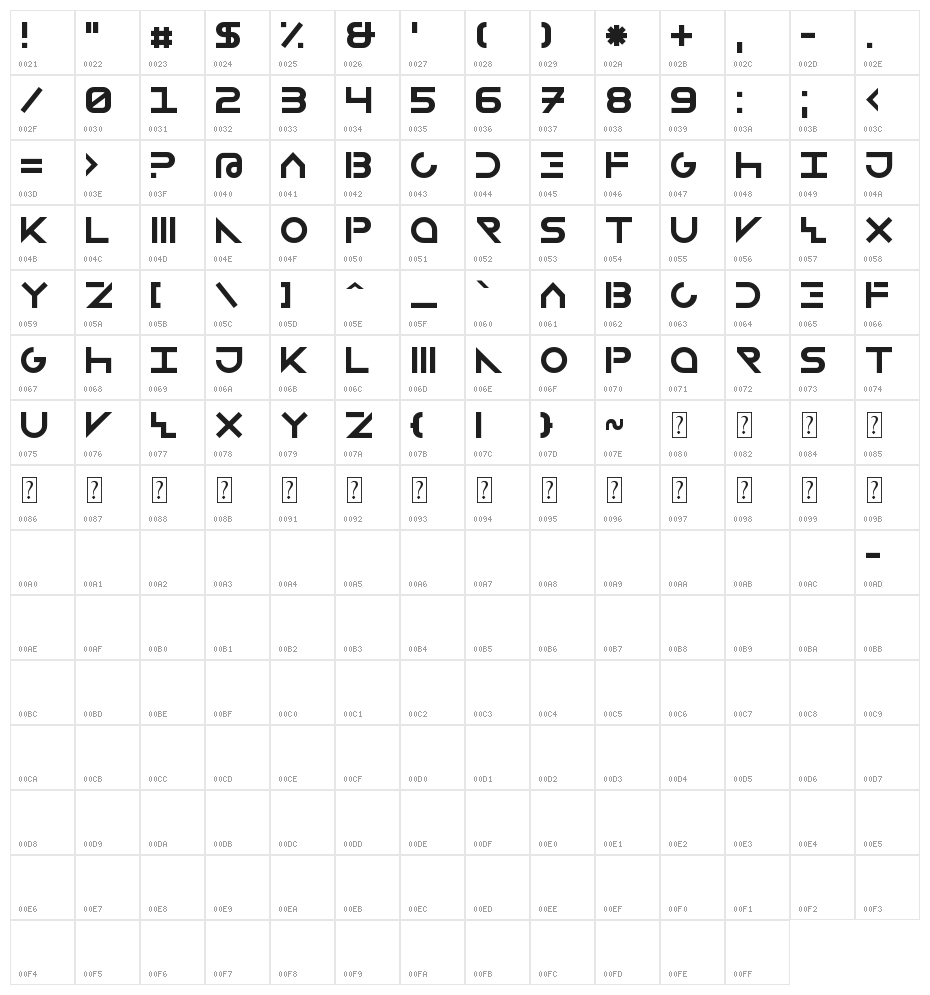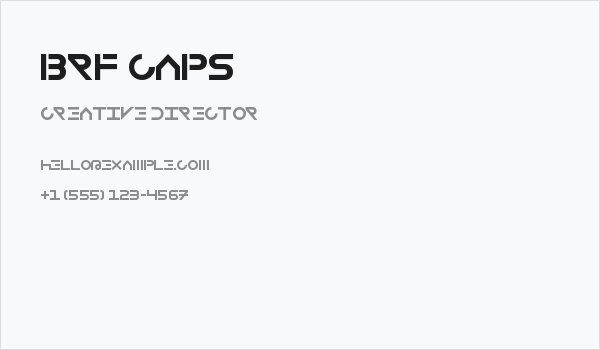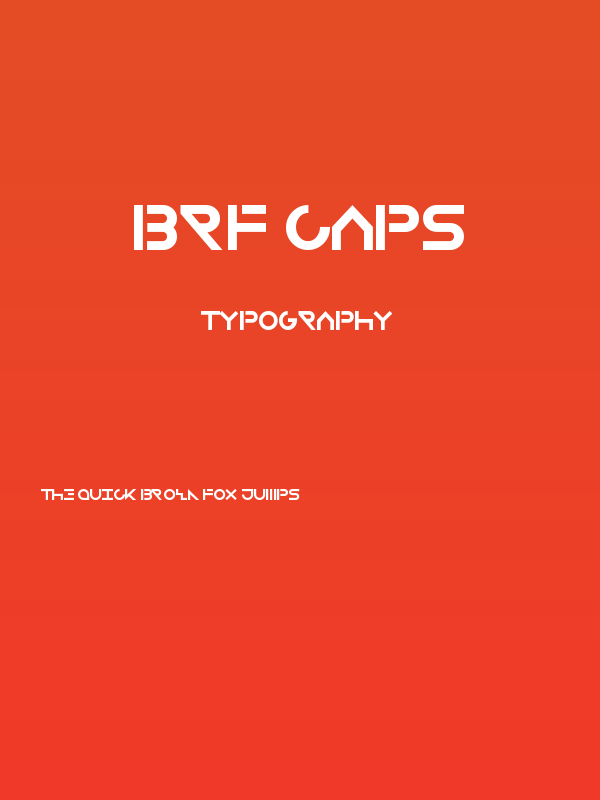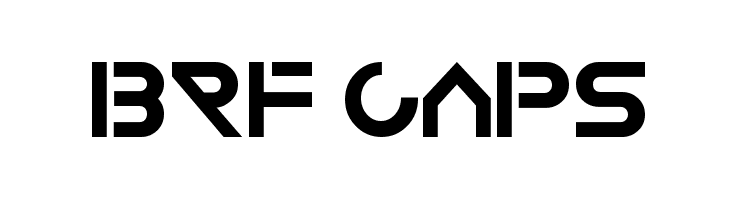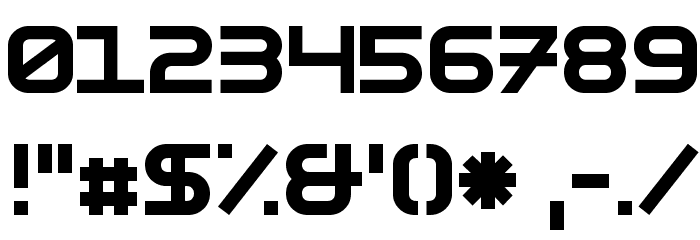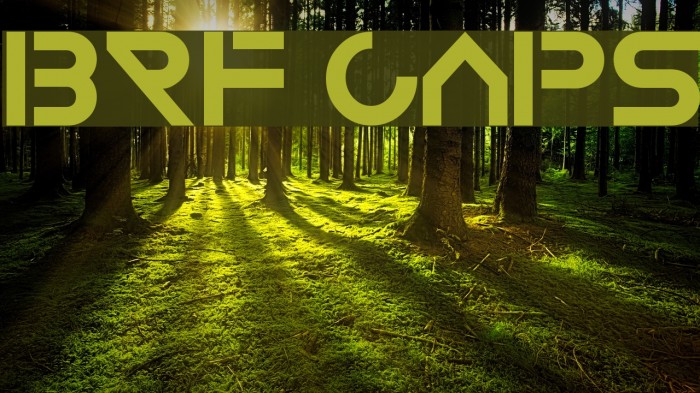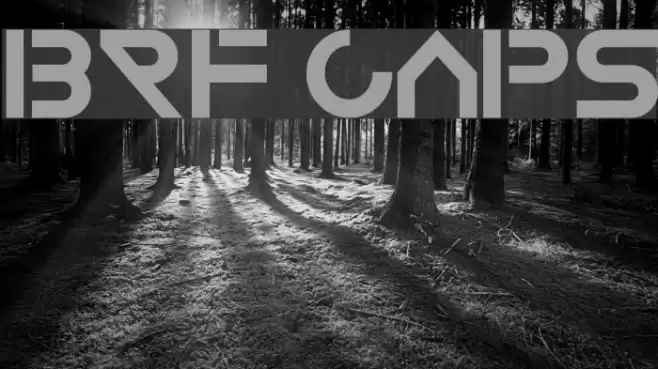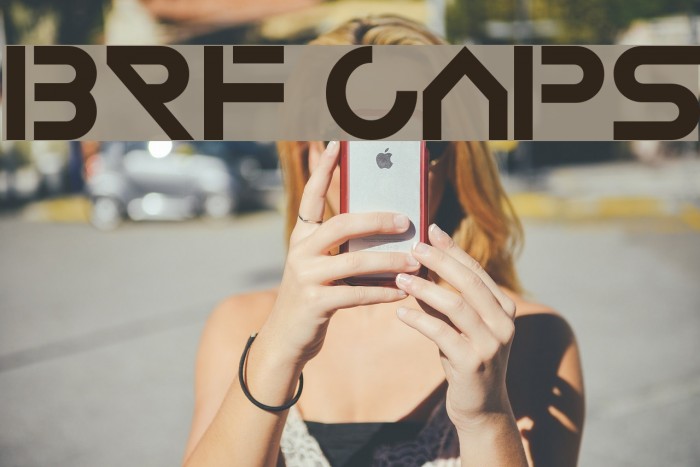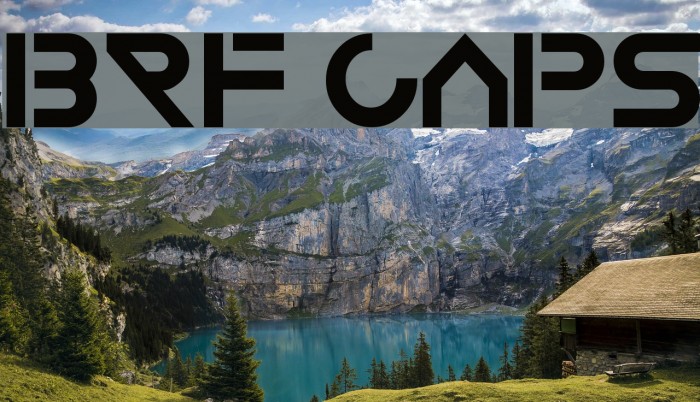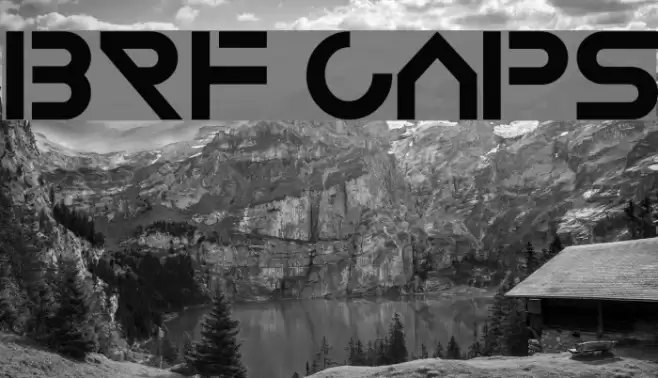
BRF Caps Font
BRF Caps Description
This font features a bold, geometric design with a futuristic and angular aesthetic. The characters are constructed with straight lines and sharp angles, giving it a modern and tech-inspired look. The uppercase letters are particularly striking, with unique cuts and shapes that create a sense of movement and energy. The numbers and special characters maintain the same bold and structured style, ensuring consistency across all elements. This font is ideal for projects that require a strong visual impact and a contemporary feel.
| Proposed Projects | Ideal for technology branding, sci-fi themed projects, video game titles, and modern posters. |